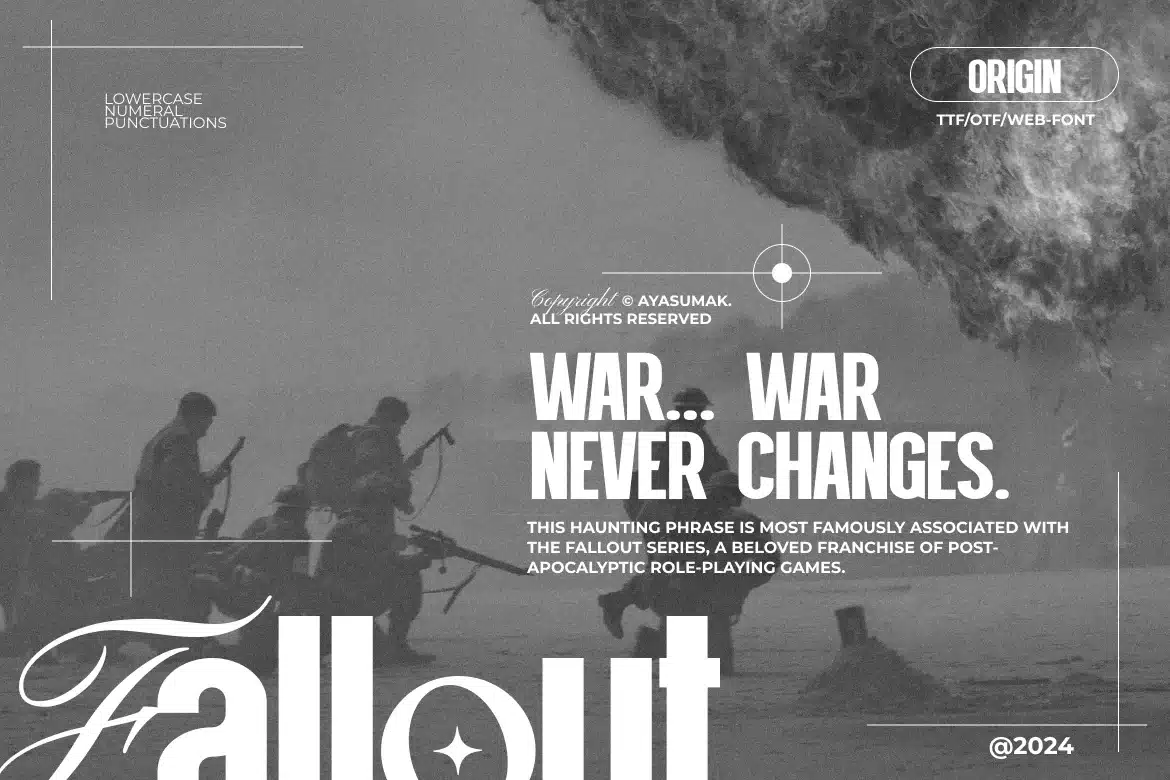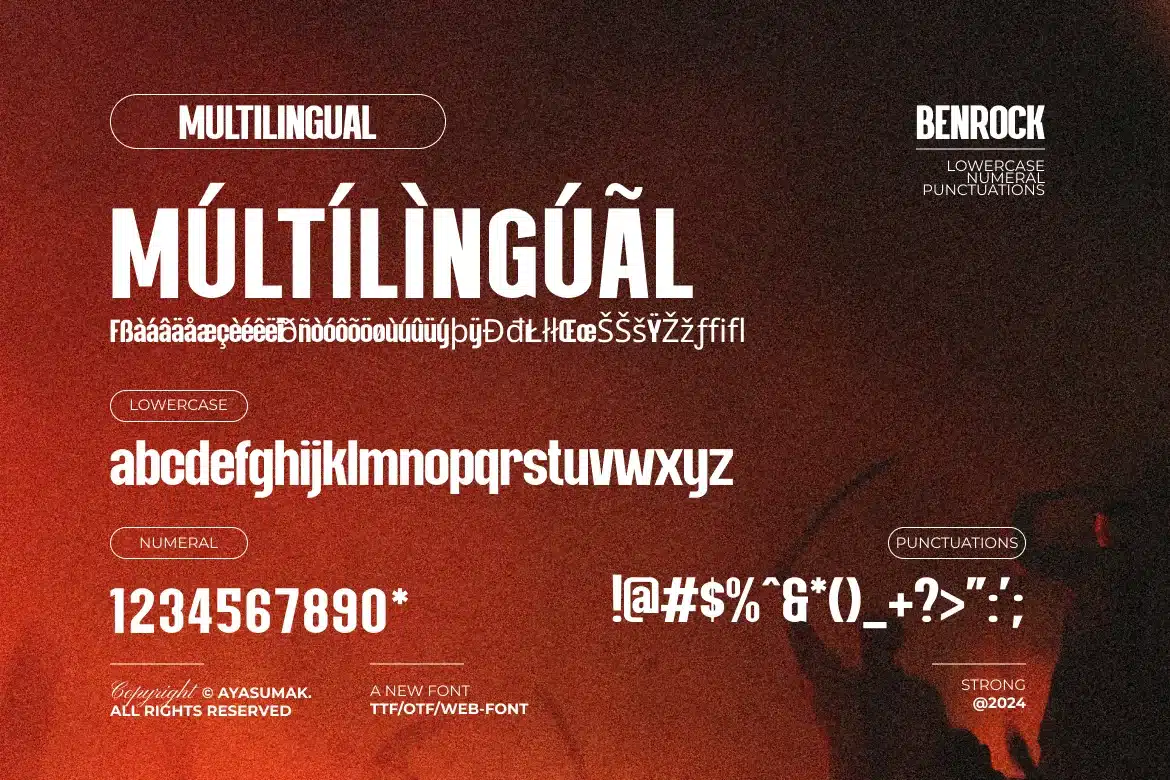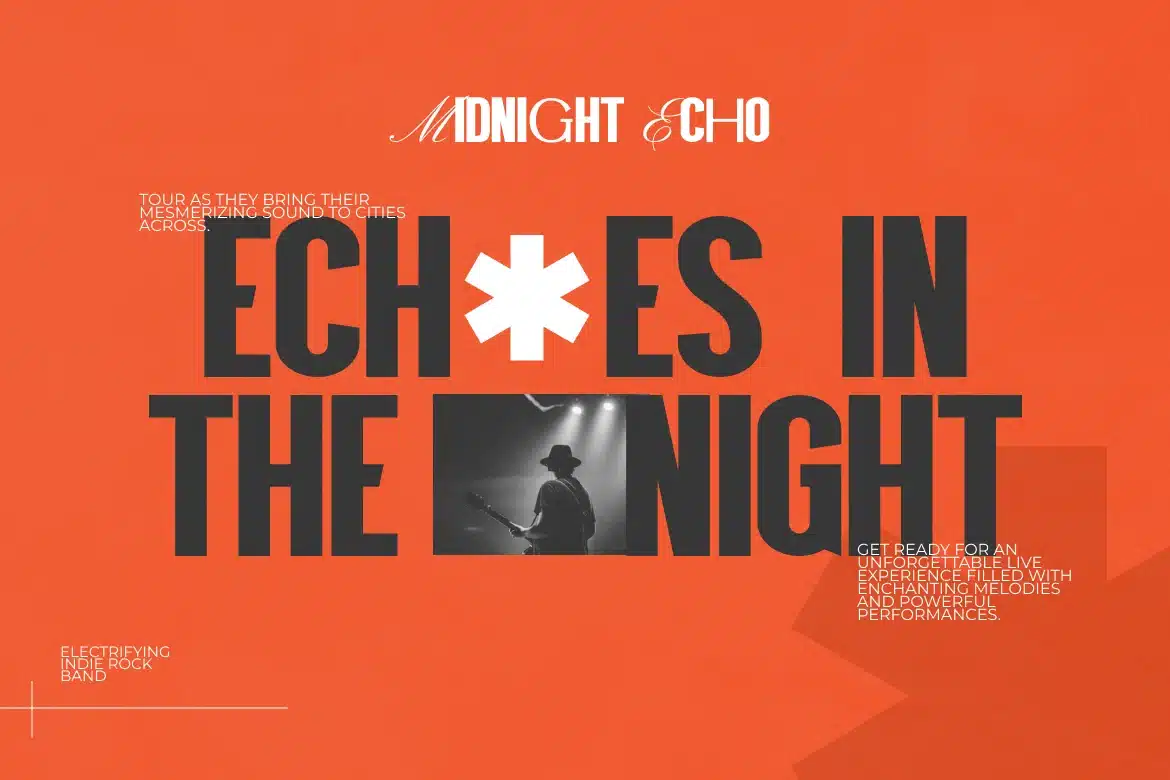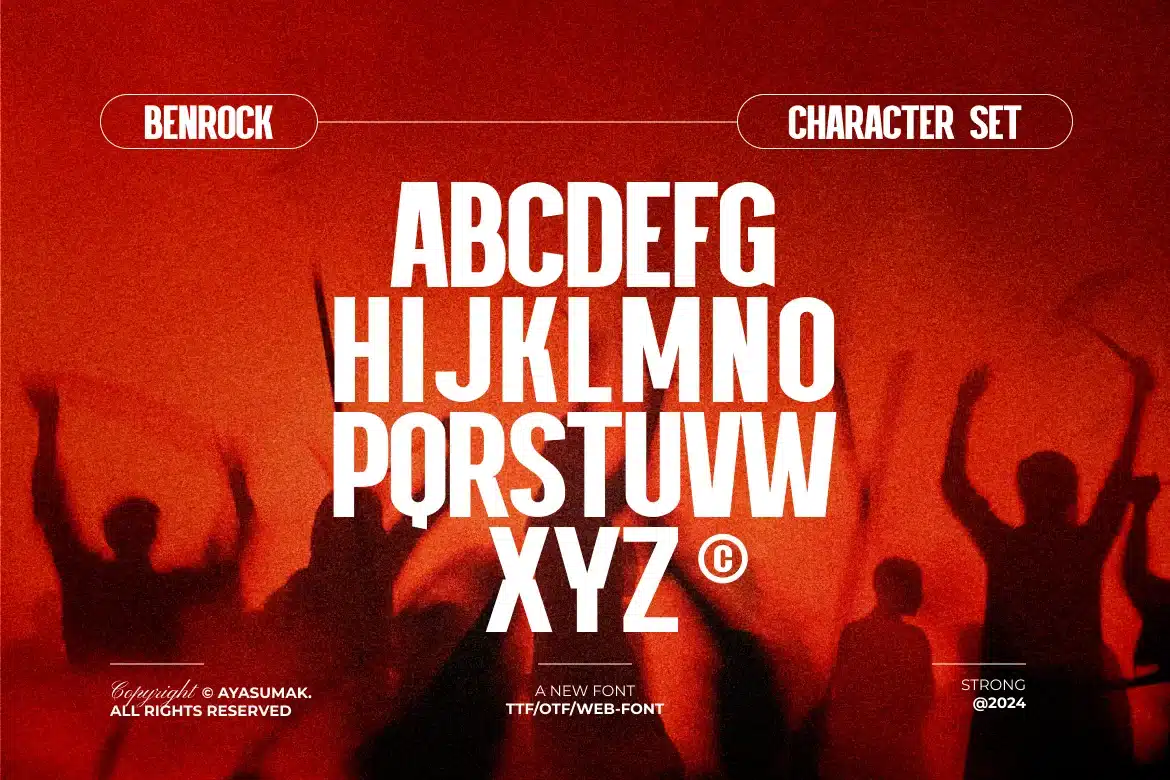
Benrock - Modern Professional Sans Font
Introducing Benrock - Modern Professional Sans Font - a Modern Professional Typeface excellent used for Heading or Title, Logotype, Merchandise, Clothing, Magazine, Food & Beverages and many more.